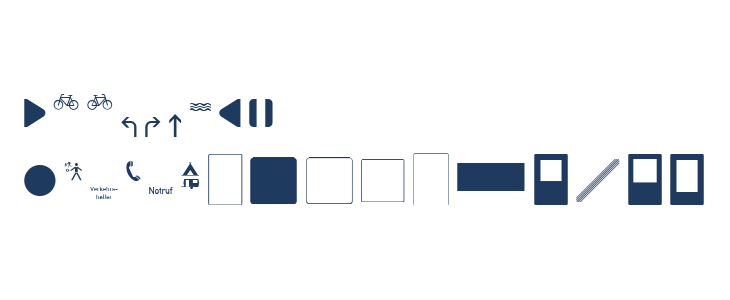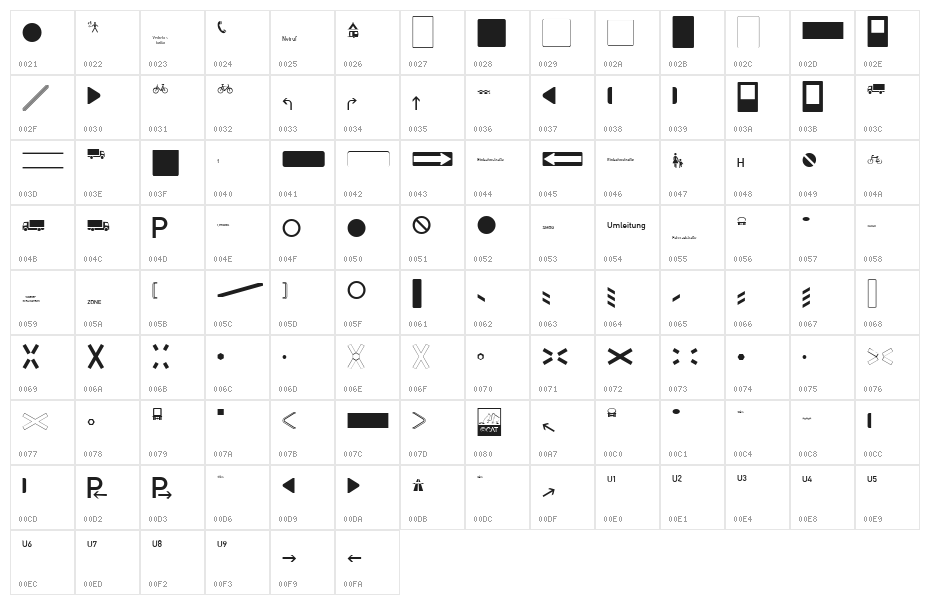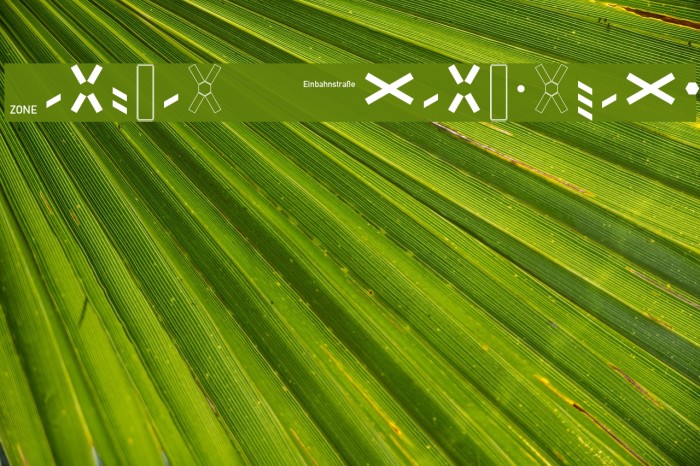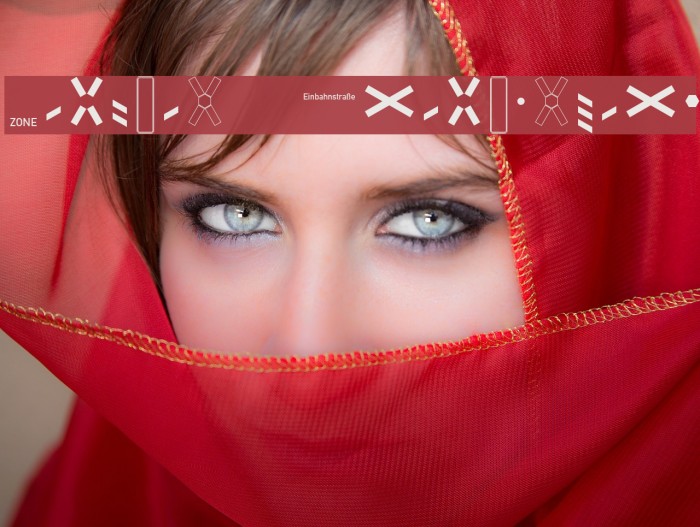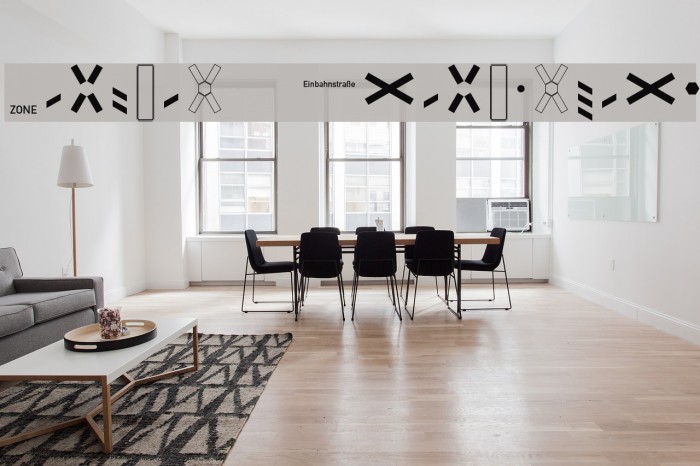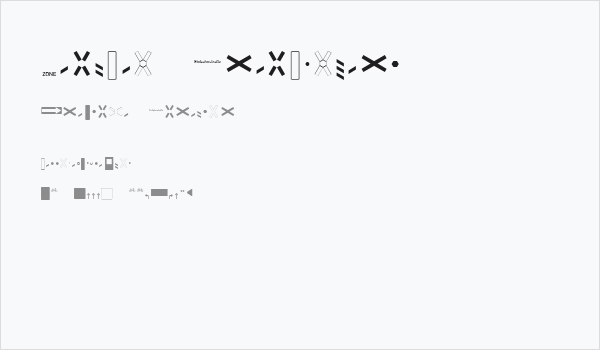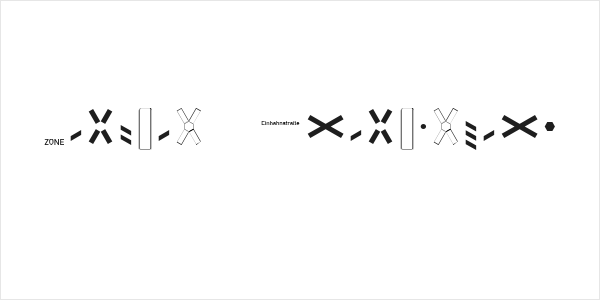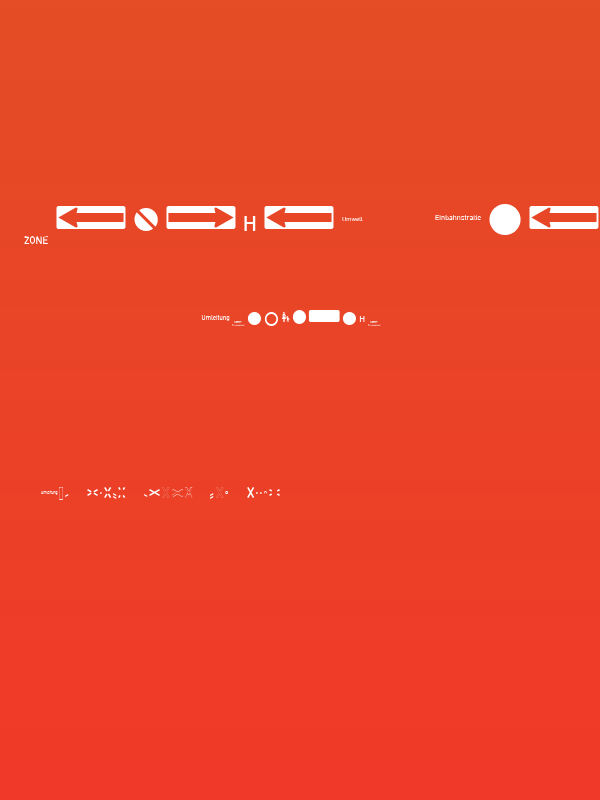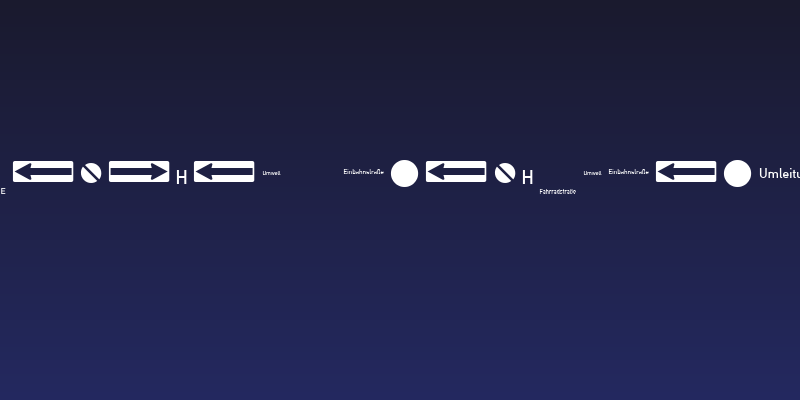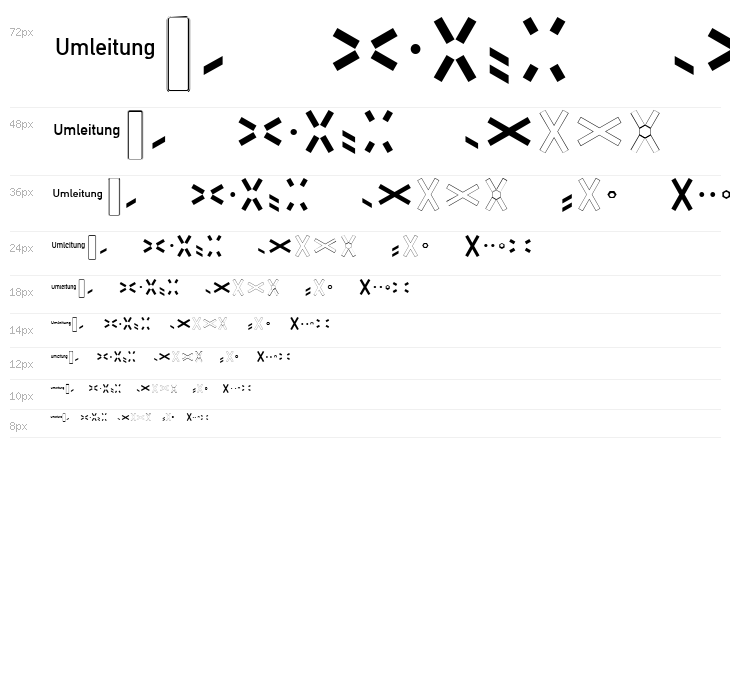
Zeichen Dreihundert Font
Zeichen Dreihundert Description
A highly legible, geometric sans-serif typeface featuring a wide range of transportation and signage pictograms, arrows, and simple geometric shapes. The letterforms are clean and modern, with uniform stroke widths and minimal contrast, designed for maximum clarity and quick recognition in public signage contexts.
| Overall Style | Modern, Functional, Minimalist |
| Use Case | Signage, Wayfinding, Maps, Instructional Graphics |
| Proposed Projects | Wayfinding systems, public transportation signage, maps, instructional graphics, infographics, urban design projects. |